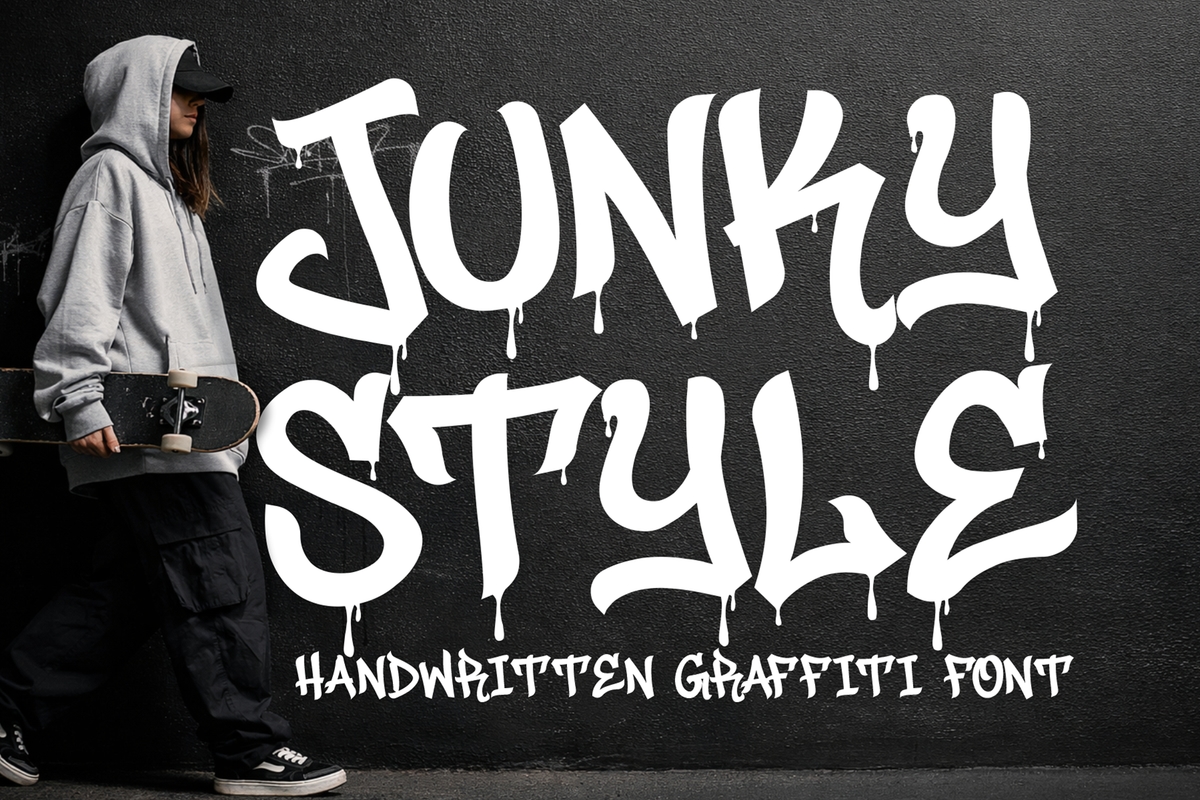
Junky Style Drip
Junky Style is a powerful graffiti display font that embodies the raw spirit of urban street culture. Inspired by the expressive nature of street tagging and spray paint art, this typeface delivers a bold and unapologetic visual identity. Its defining feature lies in its dripping letterforms, which simulate the effect of fresh paint running down surfaces, creating a sense of motion, energy, and authenticity. Each character in Junky Style is carefully designed to reflect the imperfect beauty of